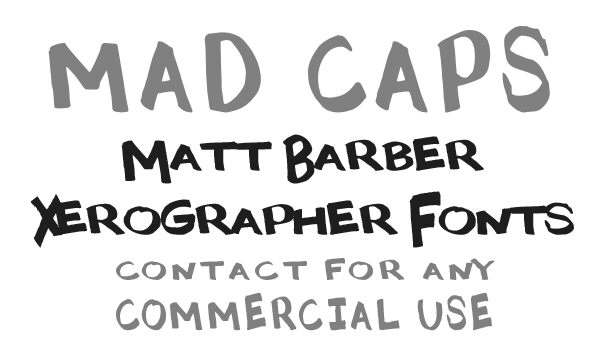
Mad Caps by Xerographer Fonts is a free handwritten display font with broad, uneven capitals and the emphatic look of letters drawn quickly with a loaded marker. Its shapes swing between blunt corners and loose curves, with shifting stroke widths and irregular joins giving each character a slightly different stance.
The rough, cartoon-like contours can become part of illustrated poster art and food packaging, especially for burger shops, comedy events, children's publishing, and independent music releases. Those wobbling outlines and oversized forms echo hand-drawn mascots and doodles, making the font useful when lettering needs to share the same lively world as the surrounding artwork.